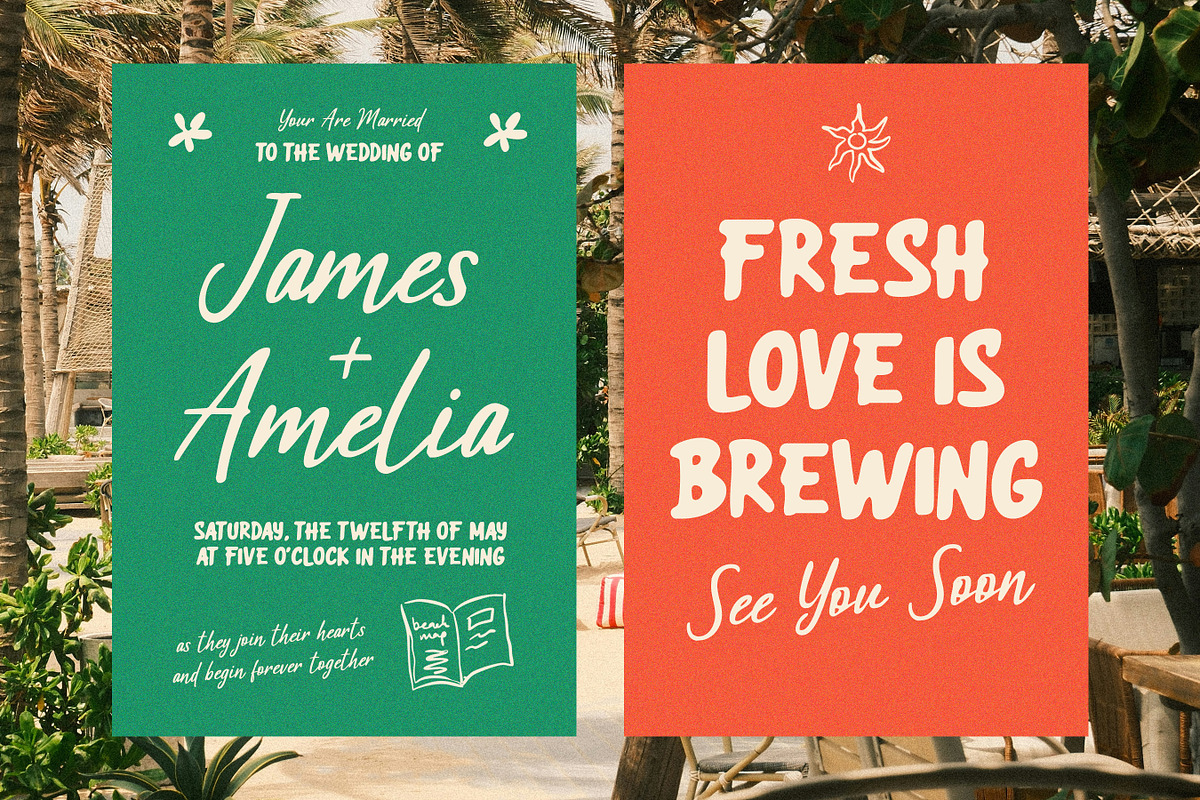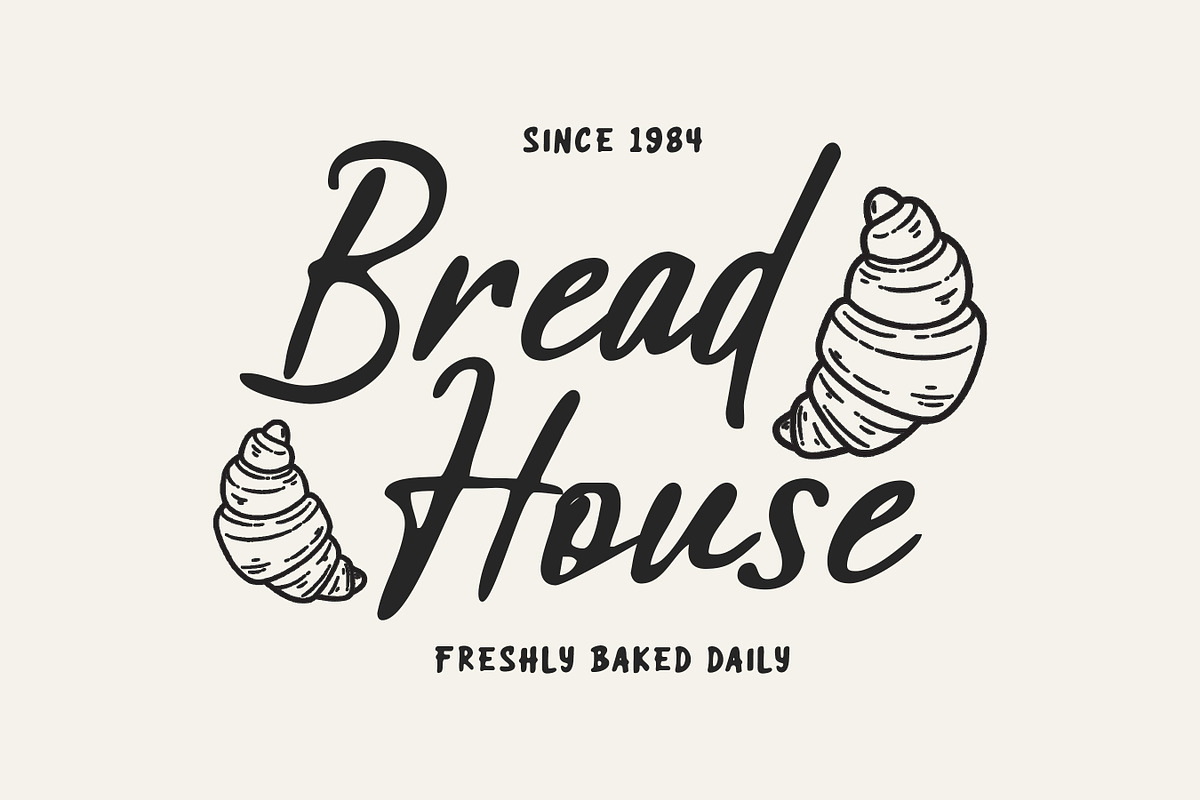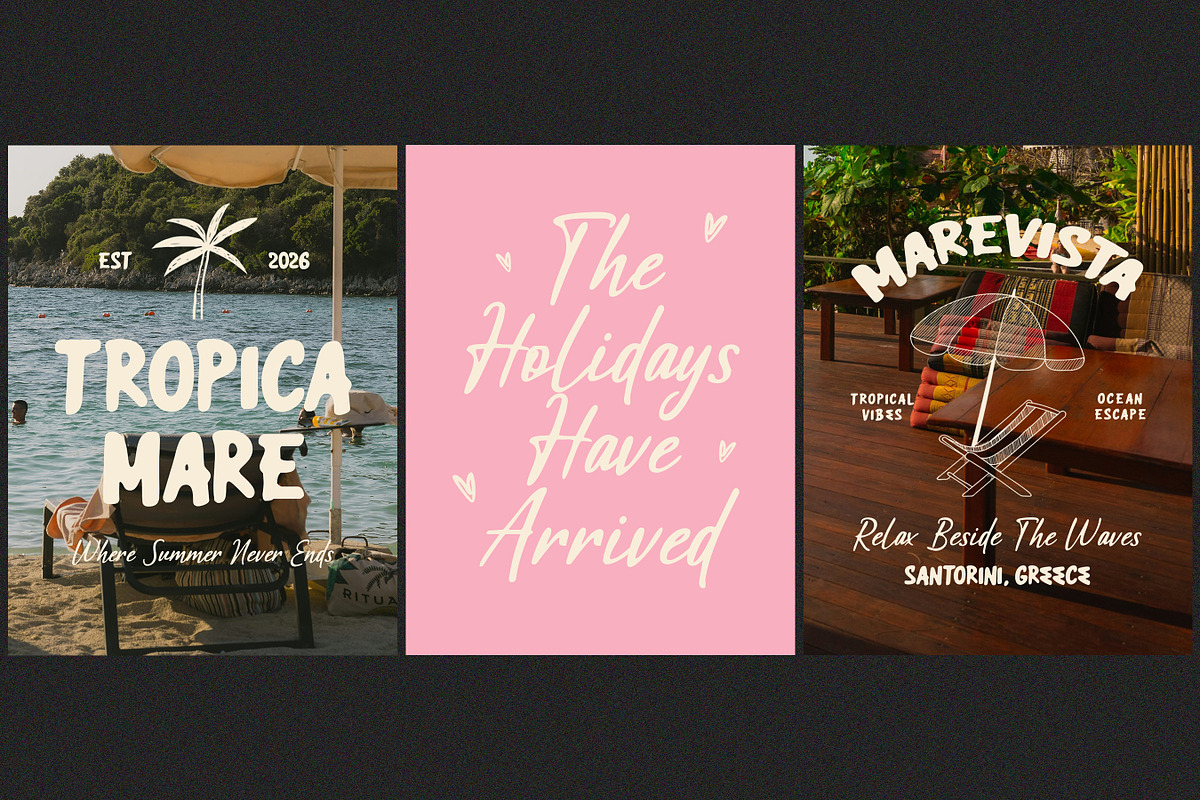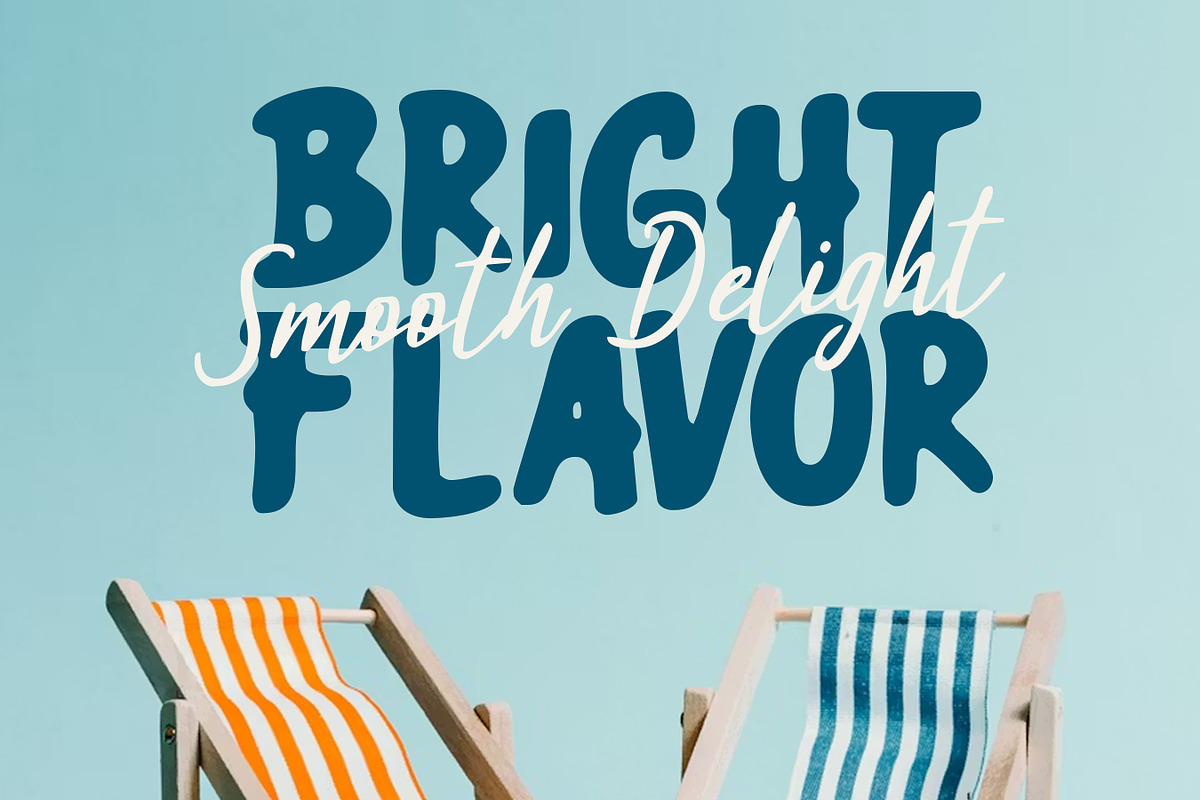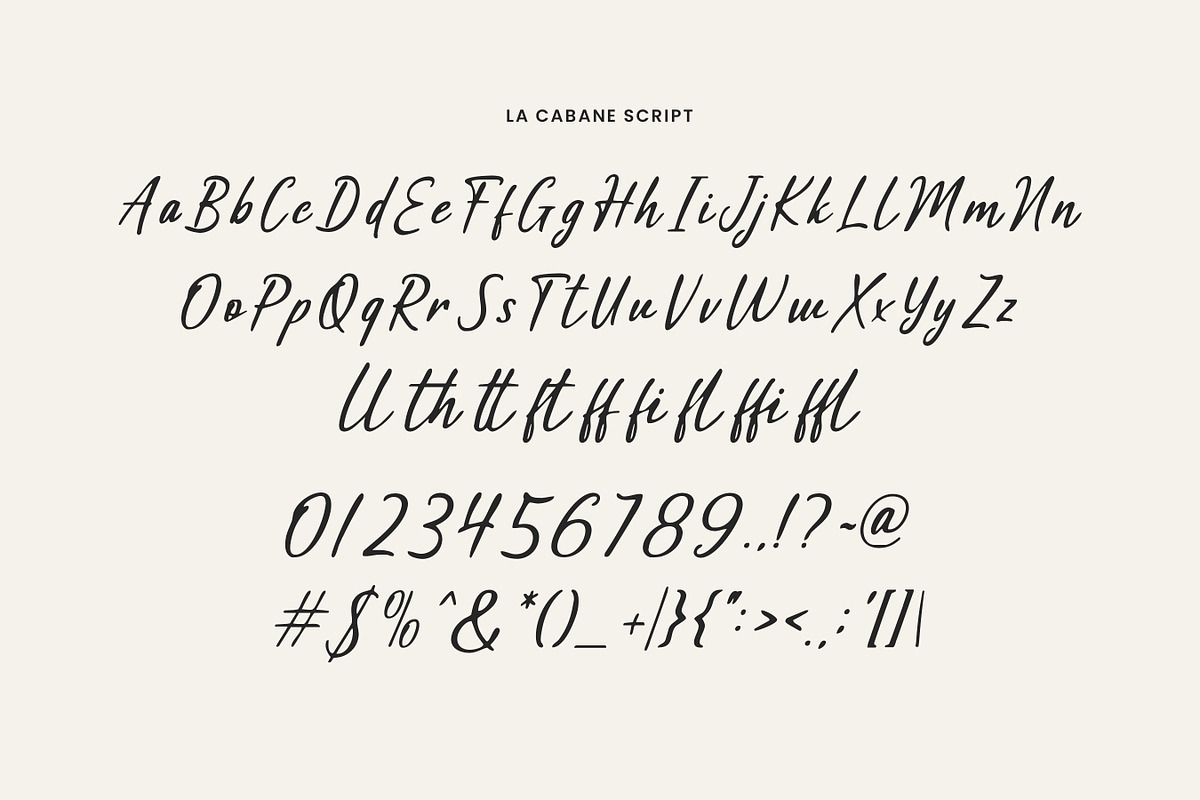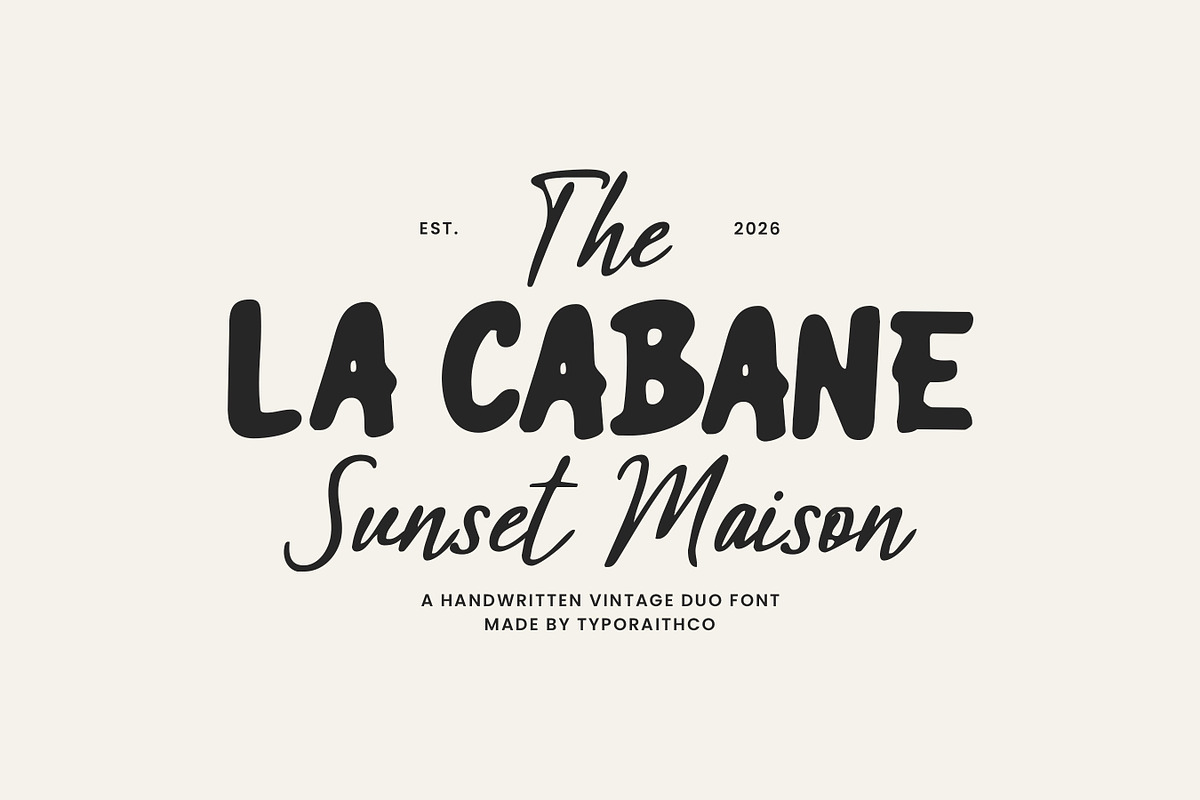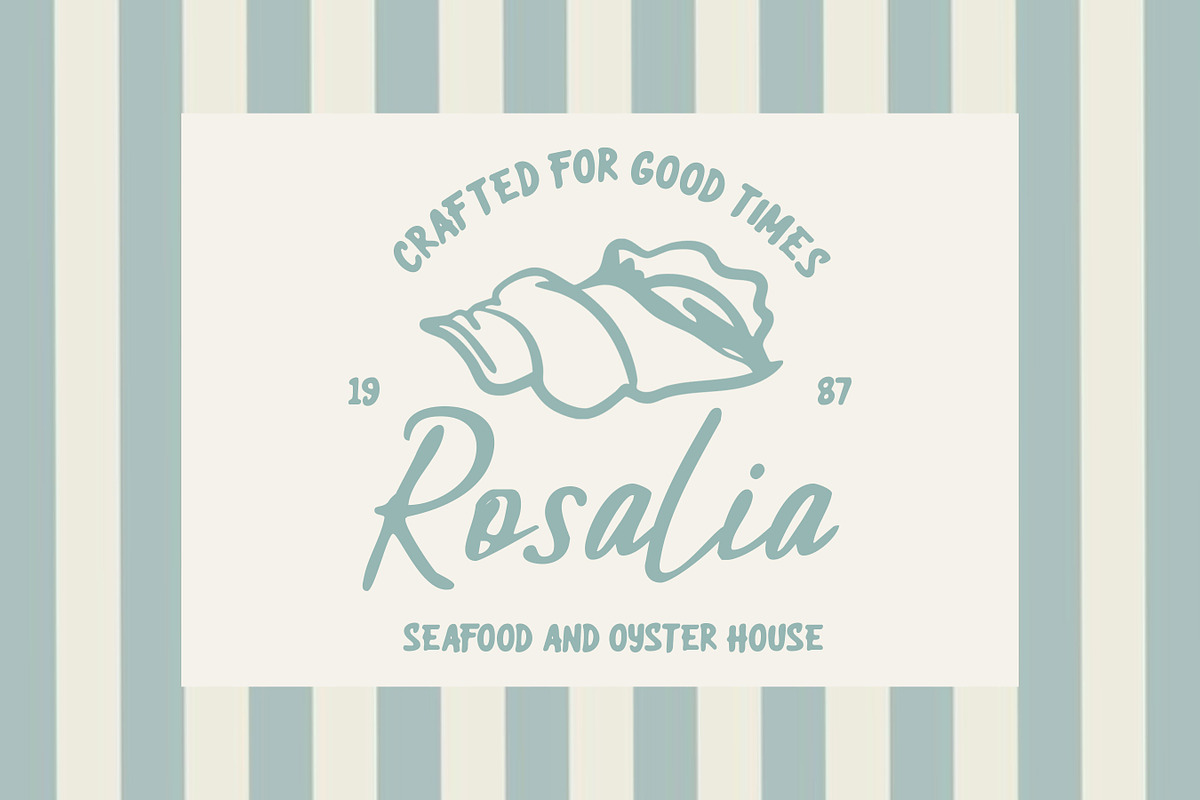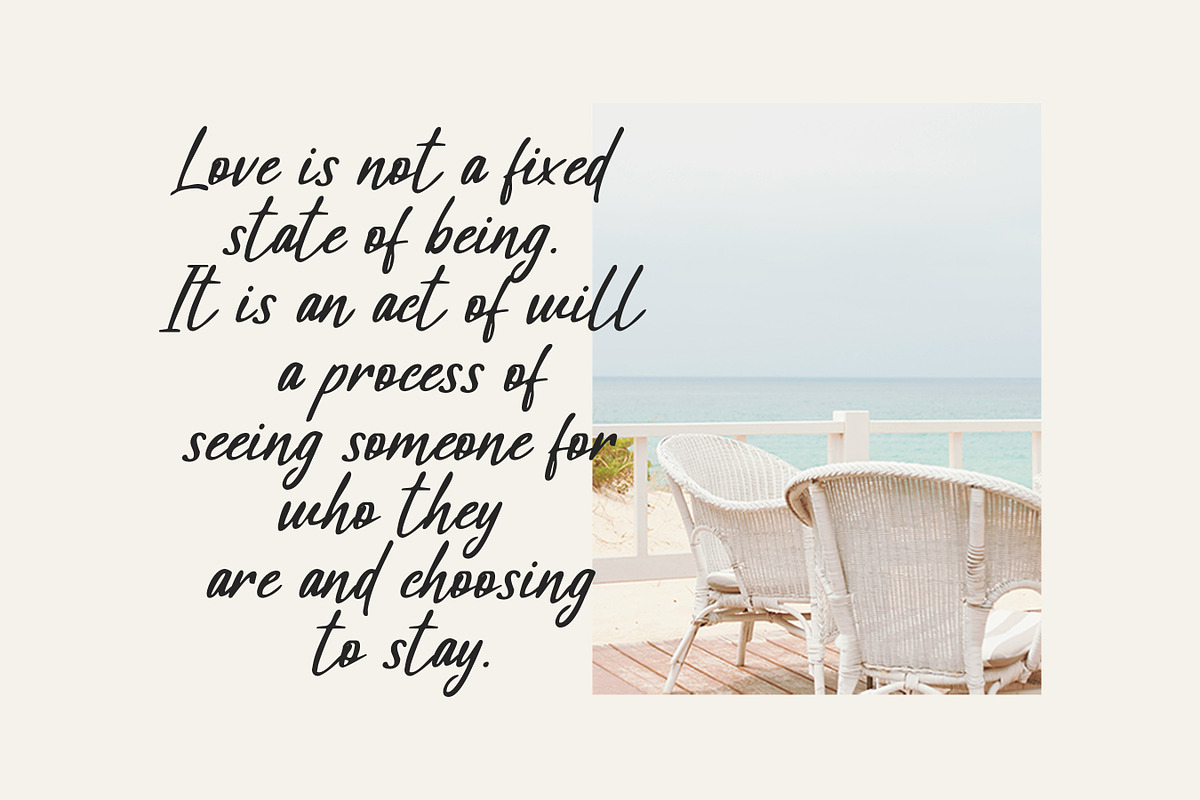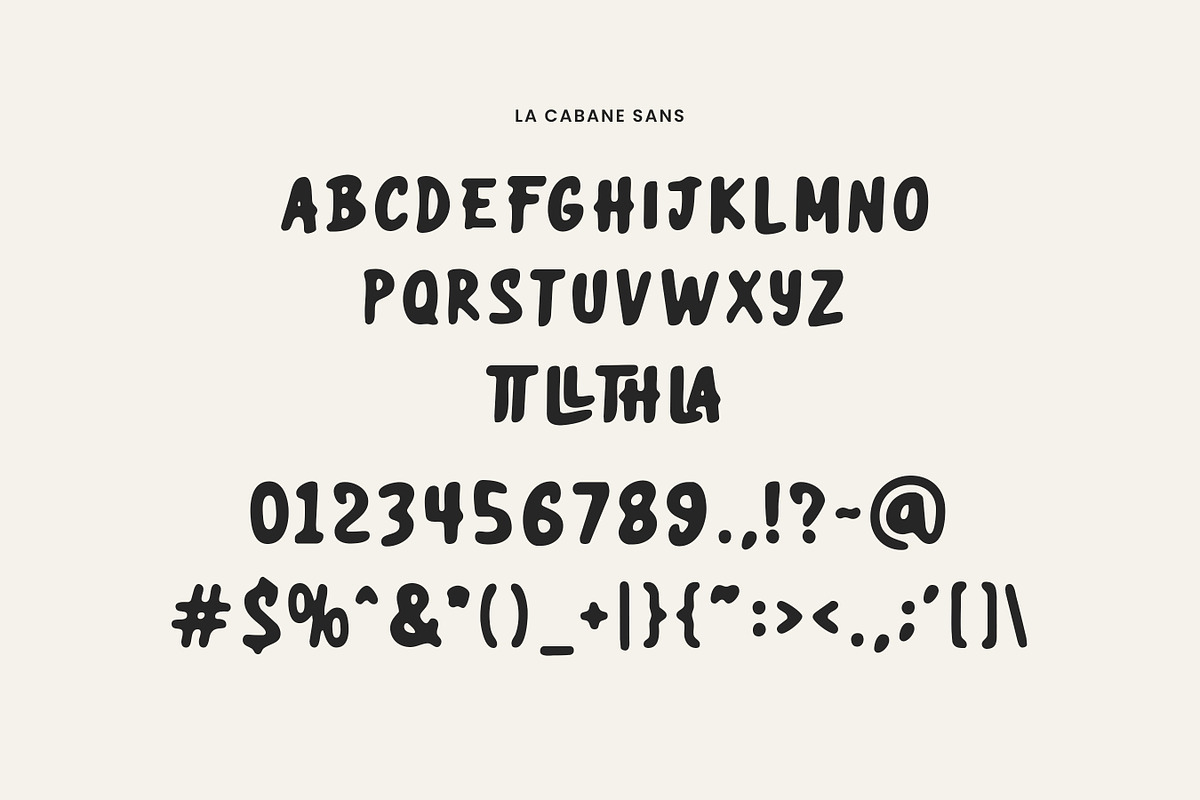
The La Cabane Vintage Duo Font
La Cabane Sunset Maison is a handcrafted vintage duo font that blends bold retro display lettering with elegant handwritten script. Designed to create a warm nostalgic feel, this font duo is perfect for branding, packaging, logos, posters, restaurant menus, café identities, social media content, invitations, and stylish merchandise.
The bold sans style gives a playful classic statement, while the script adds charm and personality. Together they create a beautiful contrast that feels timeless and expressive.
La Cabane (Uppercase & Lowercase)
Script Font with natural handwritten flow
Perfect For: Branding, vintage logos, bakery packaging, coffee shops, fashion labels, editorial designs, wedding stationery, signage, posters, and retro-inspired projects.
Bring authentic vintage character and modern elegance into your next design with La Cabane Sunset Maison.